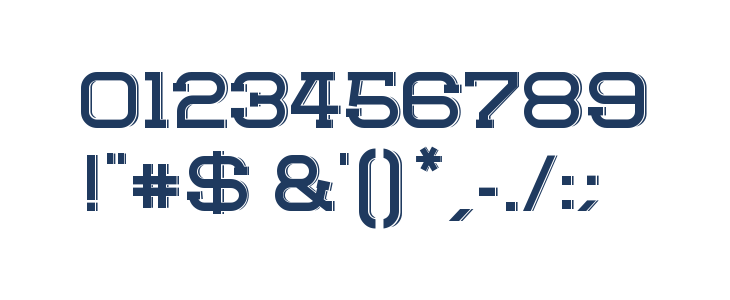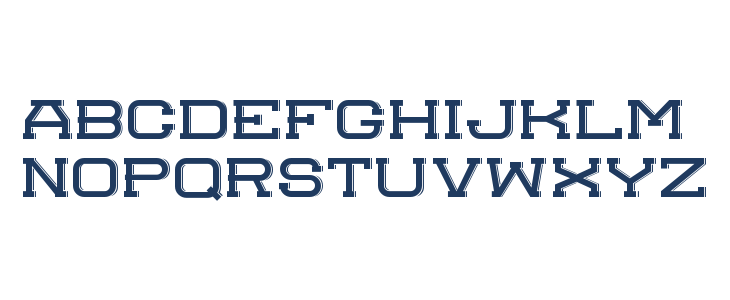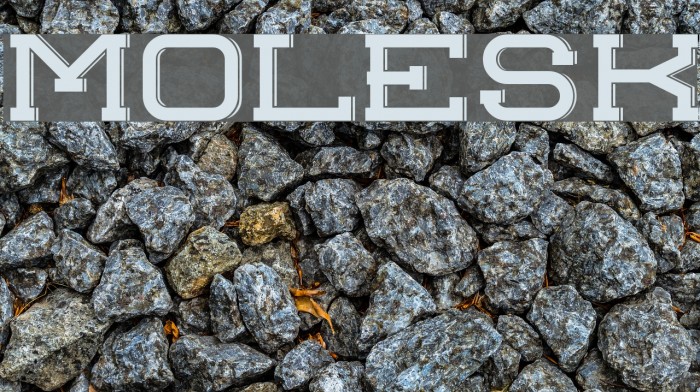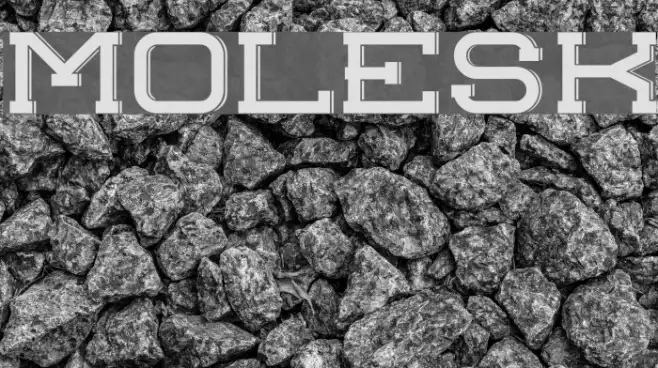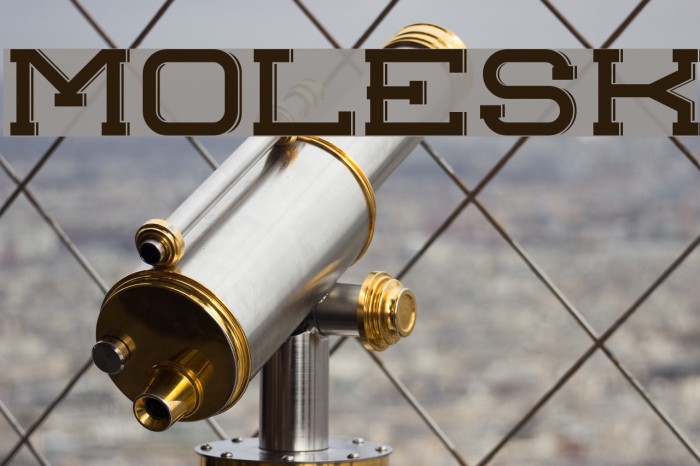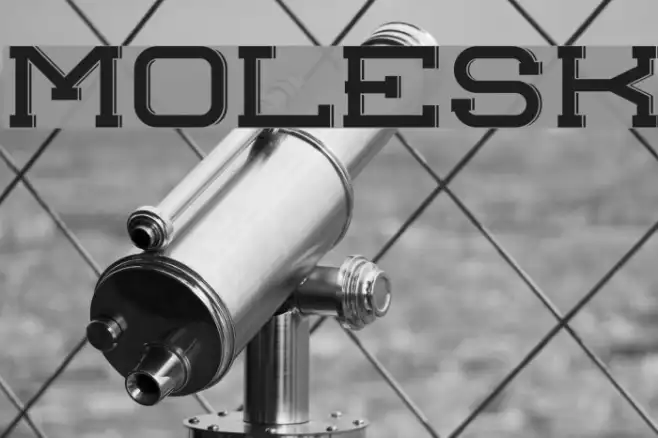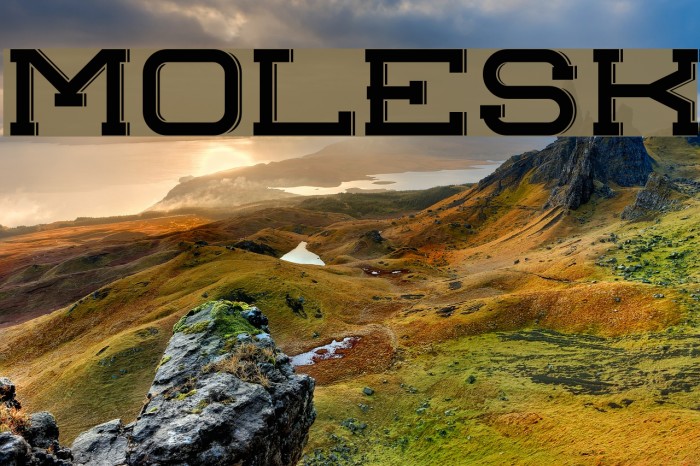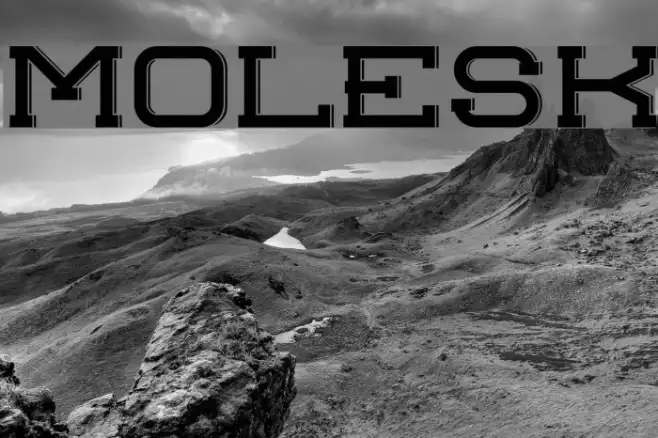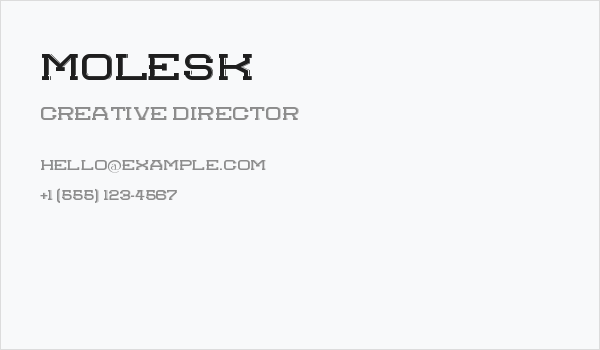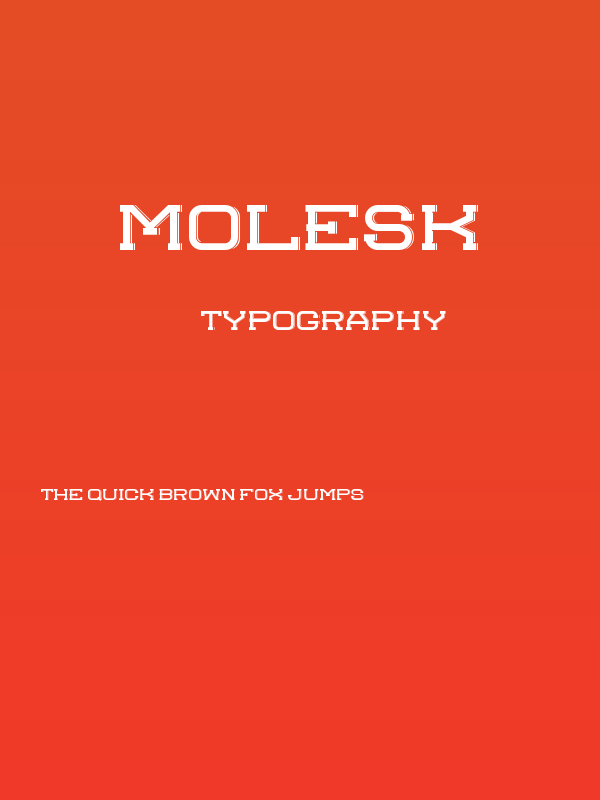
molesk Font
molesk Description
This font features a bold, geometric design with a modern and industrial feel. The uppercase letters are constructed with strong, angular lines and a consistent stroke width, giving them a sturdy and impactful appearance. The numerals and special characters maintain this robust style, ensuring uniformity across all glyphs. The font's design is characterized by its mechanical precision and a slight retro-futuristic vibe, making it suitable for projects that require a bold and assertive typeface.
| Proposed Projects | Ideal for branding, posters, and signage that require a strong, impactful presence. |